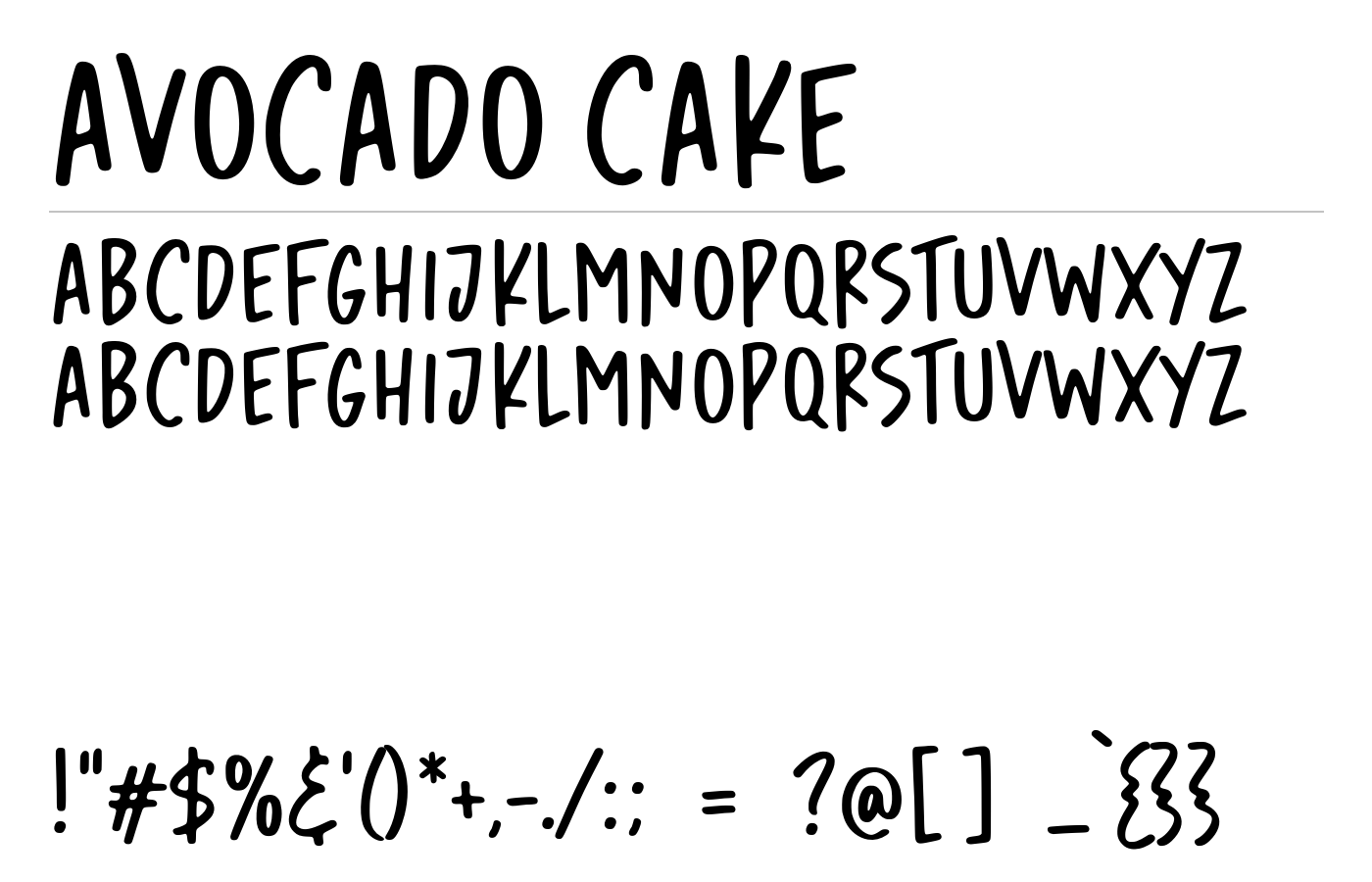
Avocado Cake is a playful and casual handwritten sans serif font with a friendly, hand-drawn feel. Its upright letters have a warm, slightly irregular shape that adds charm and approachability, making it perfect for fun, informal designs. This font works well for children’s books, creative branding, greeting cards, and any project that benefits from a lively, personal touch.
Avocado Cake Font
About Avocado Cake Font